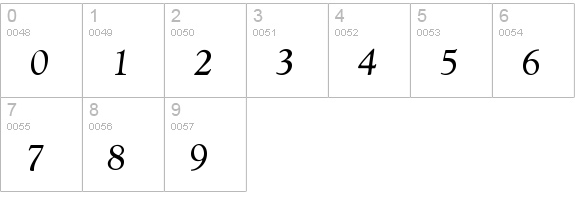
GoudyCatalogueEF-Italic Font Details
GoudyCatalogueEF-Italic is a distinctive, italic variant in the GoudyCatalogueEF typeface family \xE2\x80\x94 well suited to design and typography projects.
The GoudyCatalogueEF-Italic font exudes a sophisticated elegance with its sleek and slanted design. This italic variation of the classic GoudyCatalogueEF font adds a touch of flair and style to any project, making it perfect for headings, titles, and emphasis within text. Its graceful curves and subtle angles create a harmonious balance that is both eye-catching and easy to read. What makes this font even more appealing is that it is available for free download at FontsMarket.com. Now, you can enhance your designs with this beautiful typeface without any cost, making it an excellent choice for designers, creatives, and anyone looking to elevate their projects with a touch of class. Don't miss out on the opportunity to add the GoudyCatalogueEF-Italic font to your collection and enhance your creations with its timeless charm and sophistication.